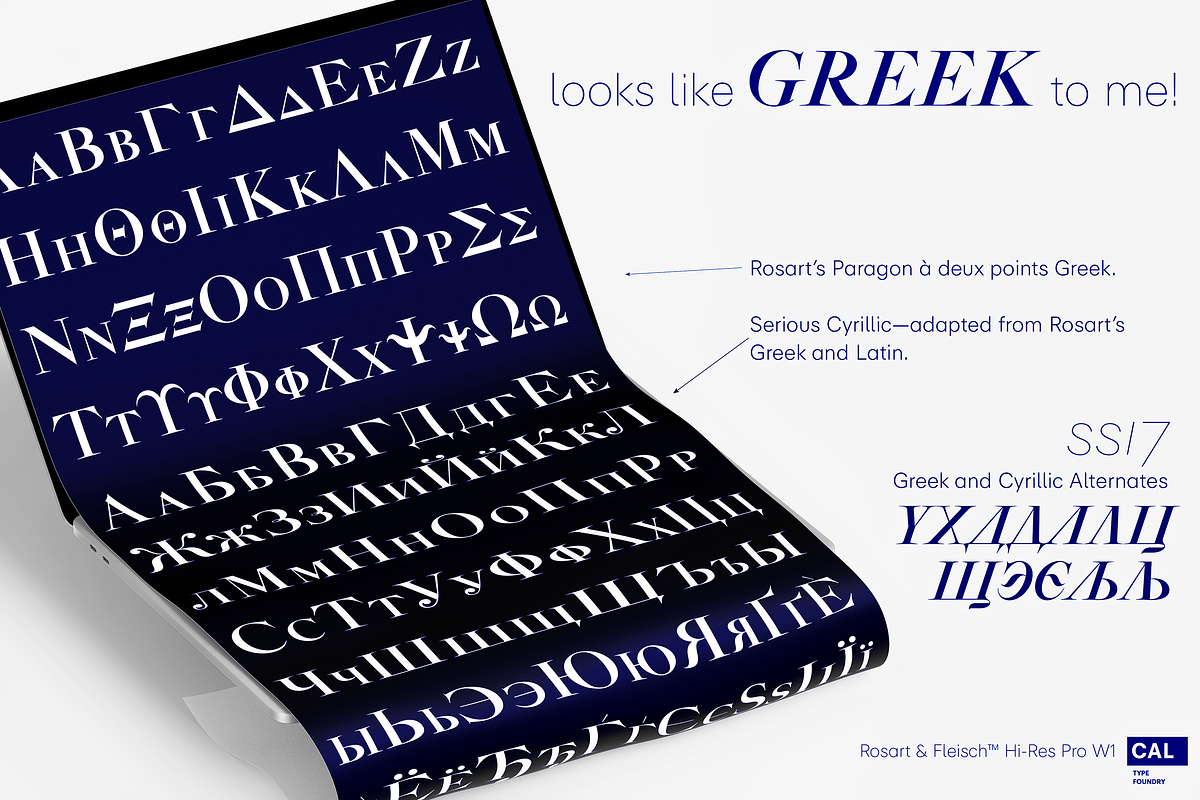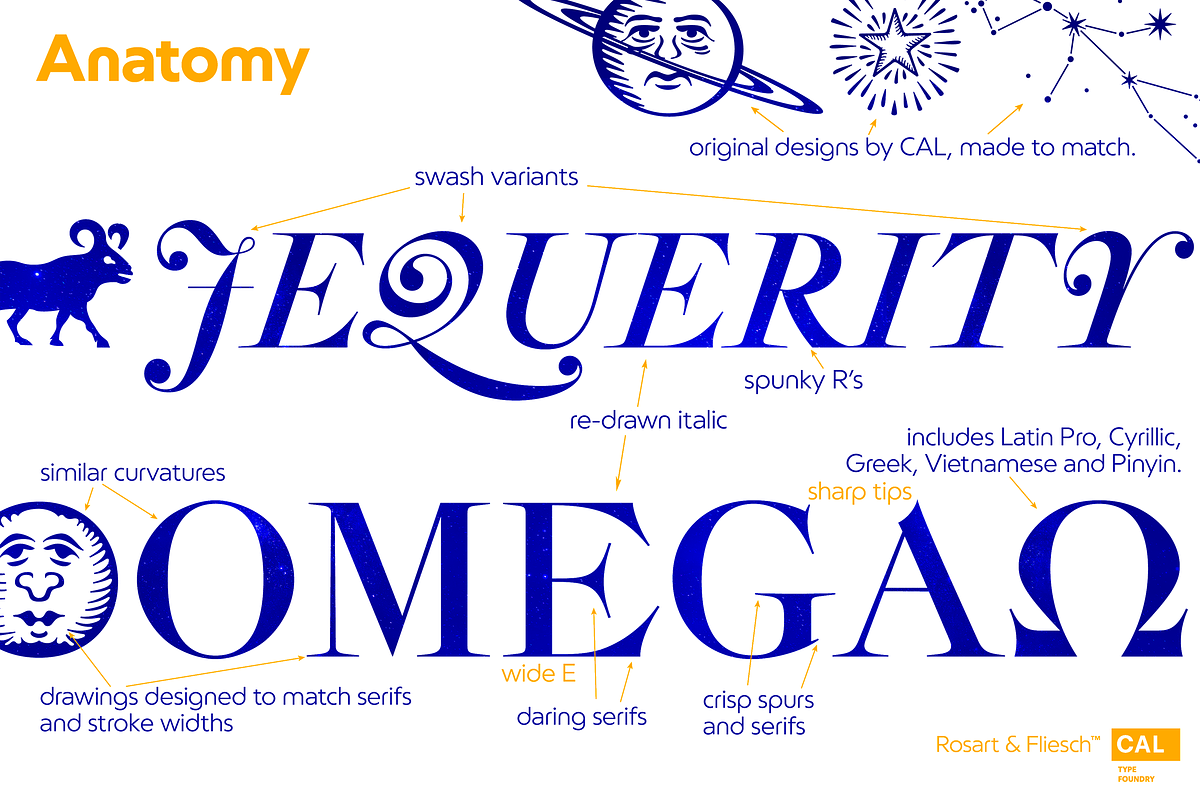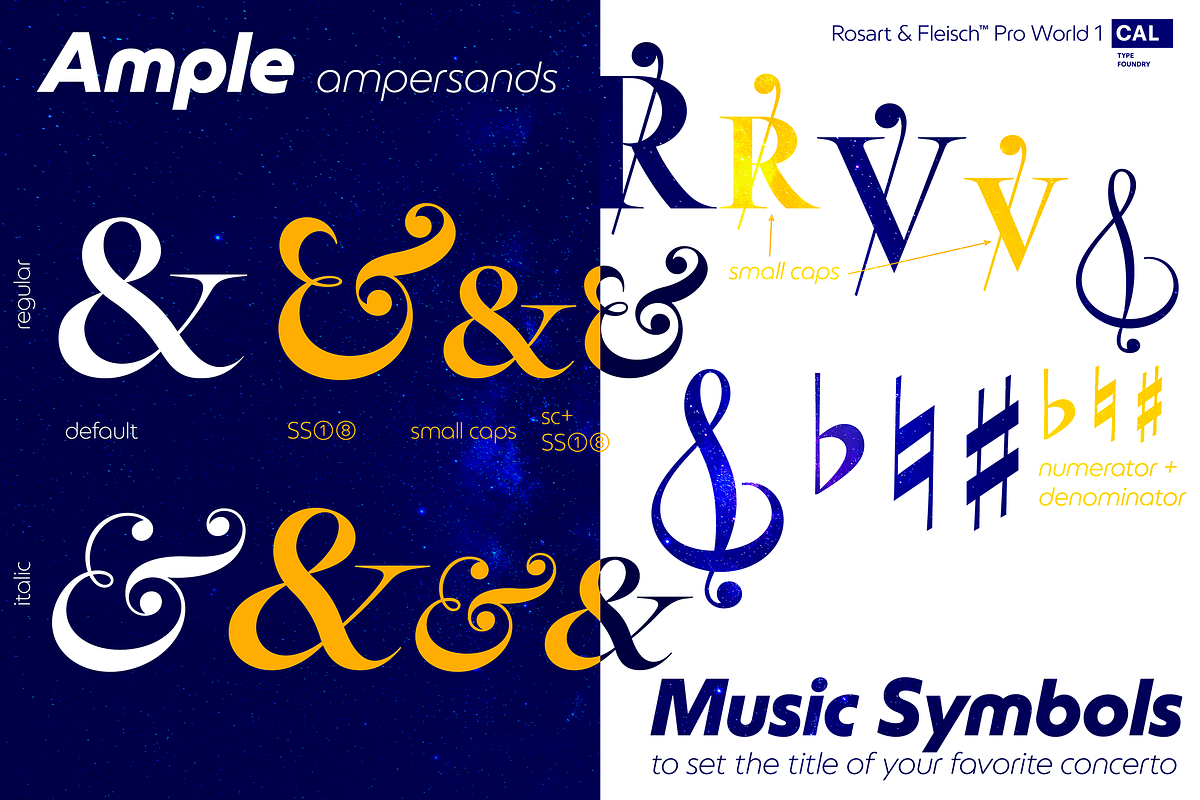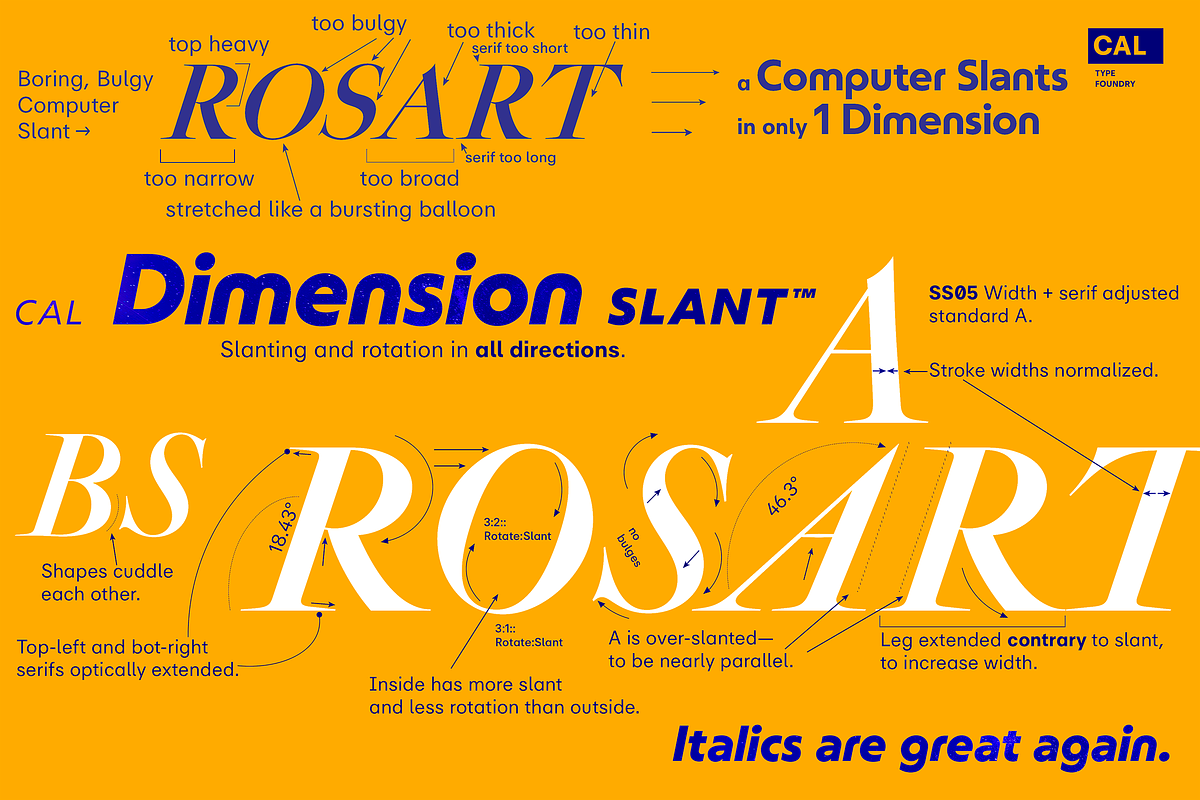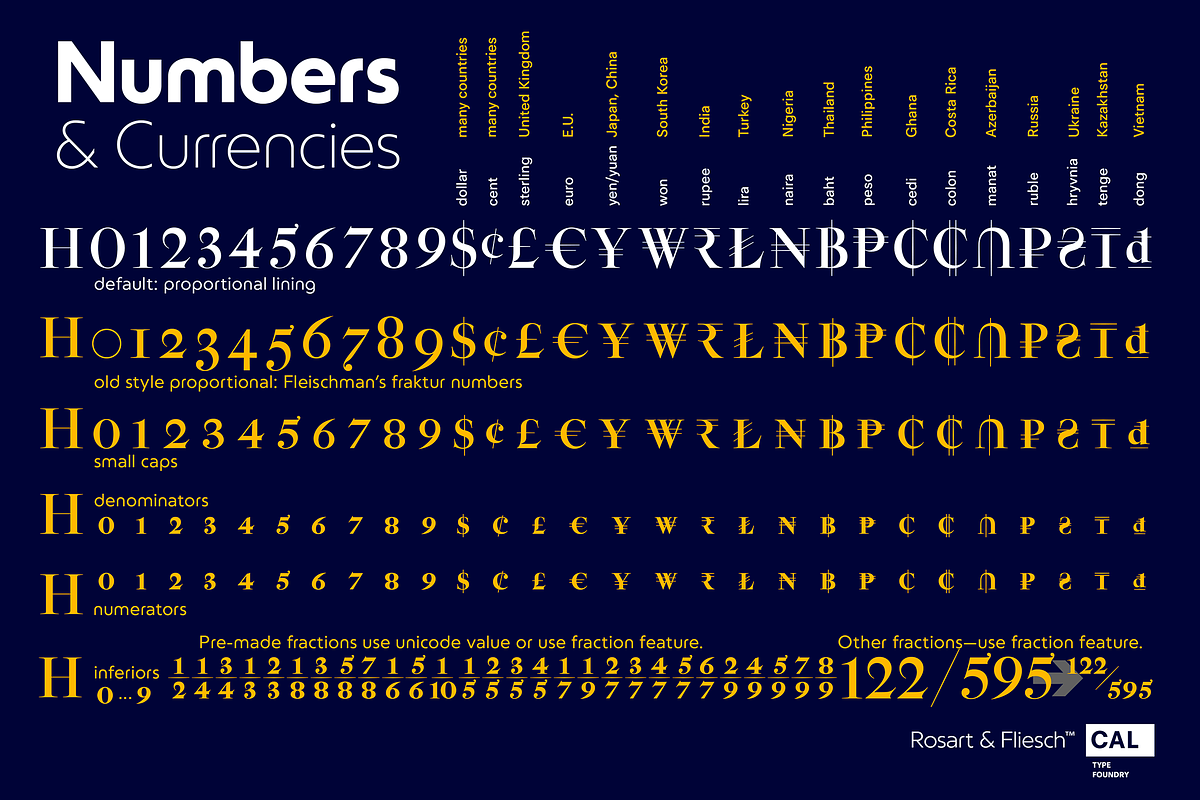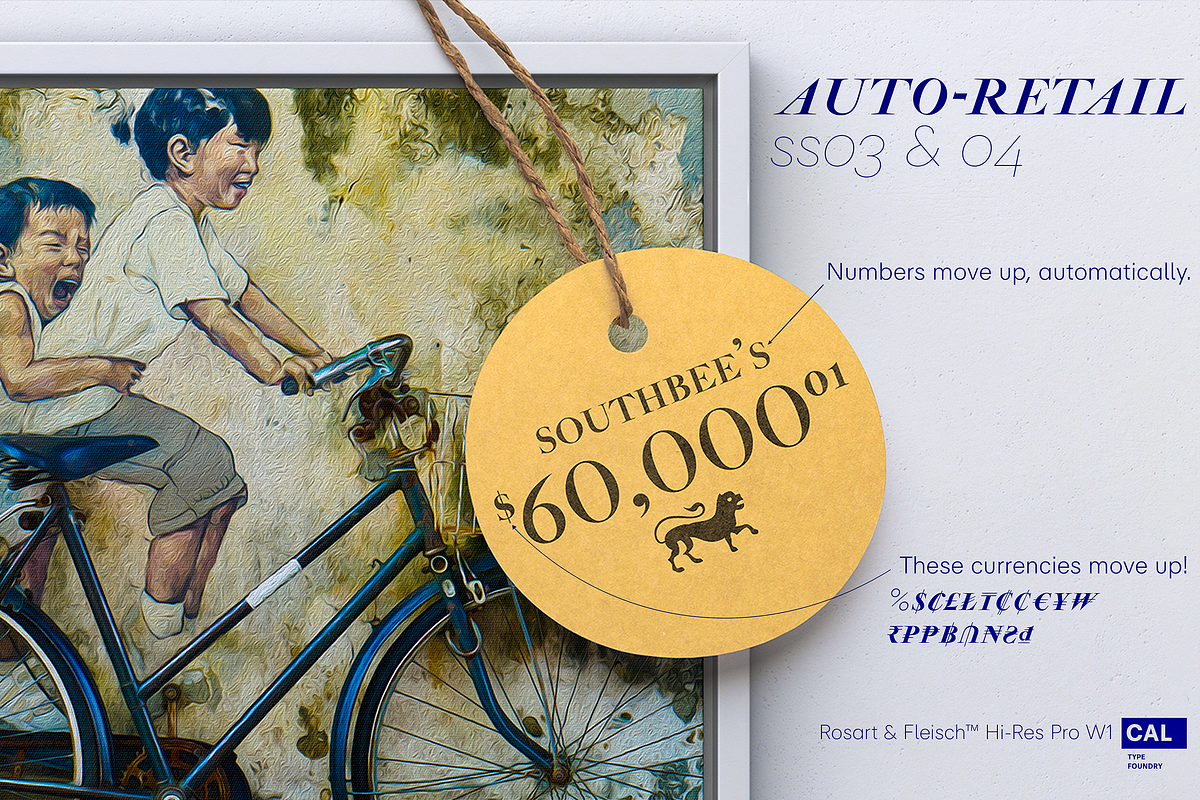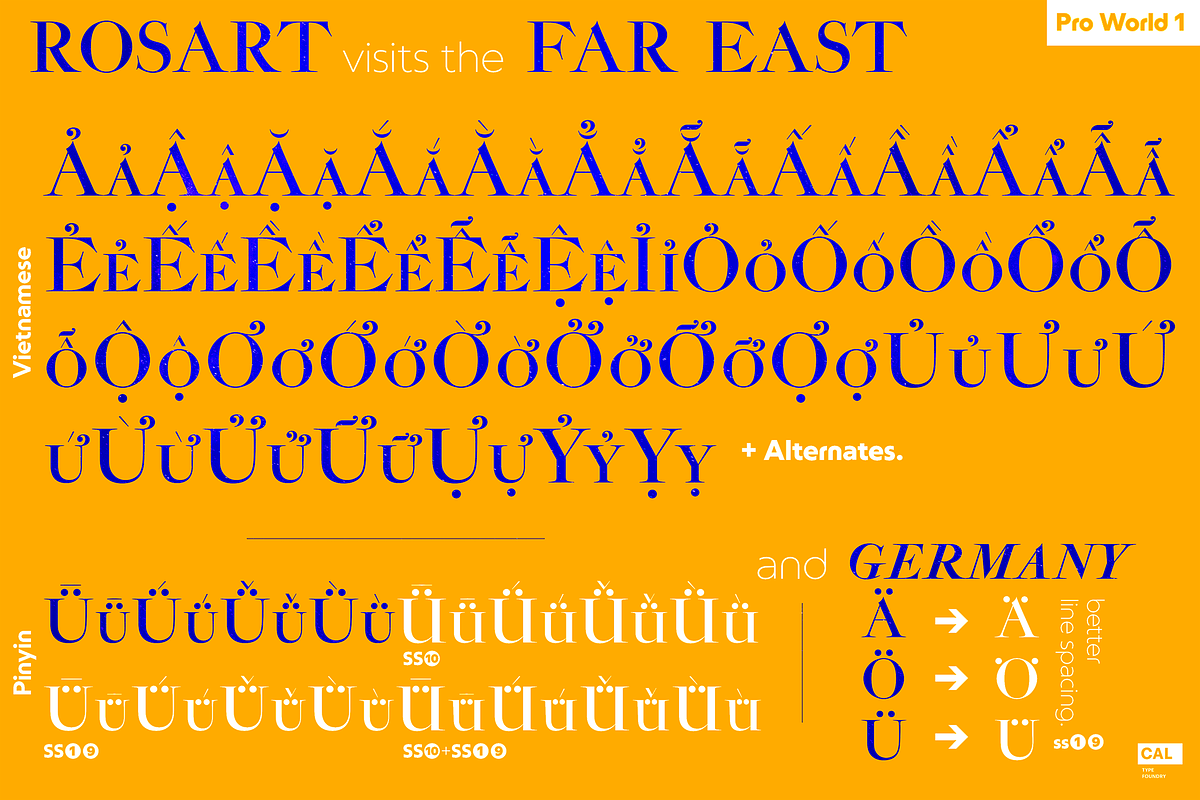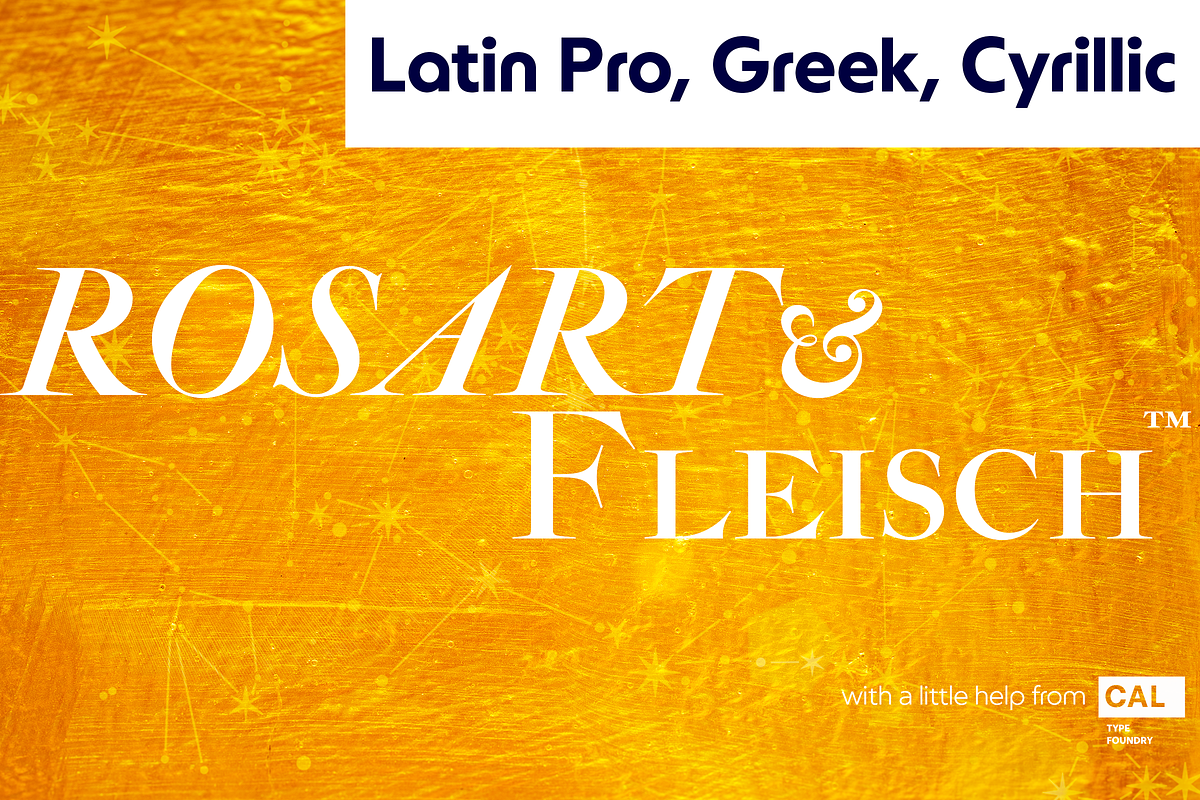
- Latin Pro character set for central European languages and Turkish.
- Rosart's original backwards X alternate. Alternate U shape.
- In the italic: swash variants for the J, Q, and Y.
- Proportional Lining (default), proportional old style, small caps figures.
- CAL Dimension Slant, for dynamic italics
- Mathematical symbols
- Geometrical shapes.
Plus these more:
- Rare kerns for Polish, Czech, Slovakian and others.
- Ligatures needed for some central European orthographies.
- Lowered German Umlauts for better line spacing.
- Cyrillic uppercase and small caps for eastern Europe, southern Europe, and Russia, with kerning.
- Rosart’s original Greek uppercase and small caps, but also tonos for monotonic Greek.
- Vietnamese, which has been kerned.
- Pinyin, including a special form of the Ü so that titles can be set closer.
- Numbers: A set of stacking (nut) fractions, along with very elegant automatic fractions
- A large set of currency symbols in lining, old style, small caps, denominator and numerator sizes.
- Our first Retail Pricing Feature: (ss03 + ss04) Just turn on the feature and type $1.99 and Rosart will do the rest.
- Ampersand alternates.
- Numerator sized musical sharp and flat symbols.
CAL's Dimension Slant™ Instead of sloping all the pictures and drawings to an even slant, a multidimensional approach was used. And each symbol was evaluated and crafted individually.
We believe that one of the reasons slants and italics aren’t used that much is that many times they are an afterthought in the design. Or sometimes even experienced designers just let the computer do the work.
We wanted to make italics and obliques great again.
Hi Res™ Fonts - 10,000 × Precision of Ordinary Fonts! Fonts are usually manufactured with many rounding errors and distortions in every letter. With that rounding, you are not getting the designer’s original letter shape.